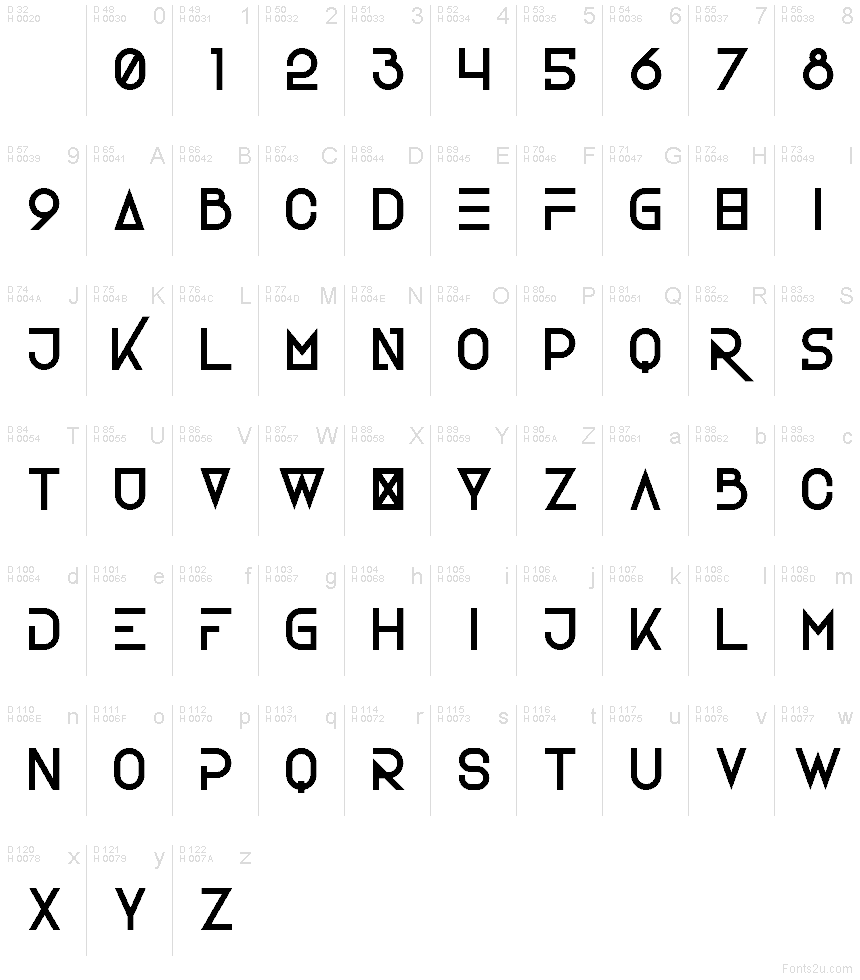
BluPurpl
BluPurpl font by VPcreativeshop is tech-inspired and futuristic, mixing a modern touch of sleek lines and geometric styling in a minimalist approach. This free display font features techno letters which instantly give an advanced technological touch to projects. With some imagination and resourcefulness, designers will have endless possibilities for stylish projects.
Use BluPurpl for your mobile application designs, websites, or web-based platform interfaces. Improve video games user interface and upgrade graphics with this font. It’s also perfect for posters, movie titles, album covers, digital banners as well as printed ones.